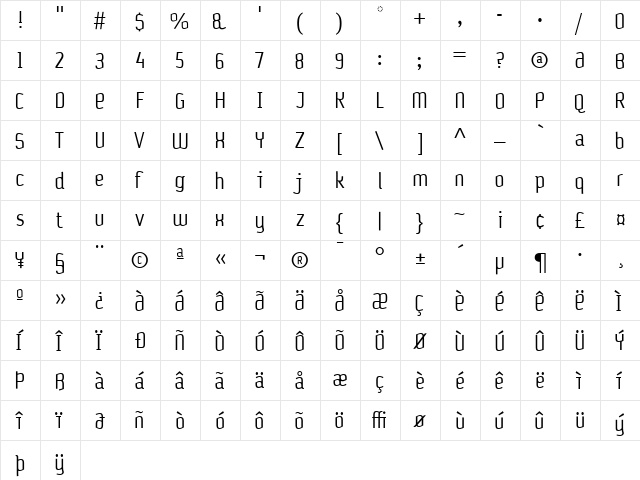
Petrol Light
Design Context for Petrol Typeface
Petrol offers clean, dependable letterforms without strong stylistic allegiance, making it a practical choice for designers who need flexibility. The delicate stroke weight brings airiness and refinement to layouts.